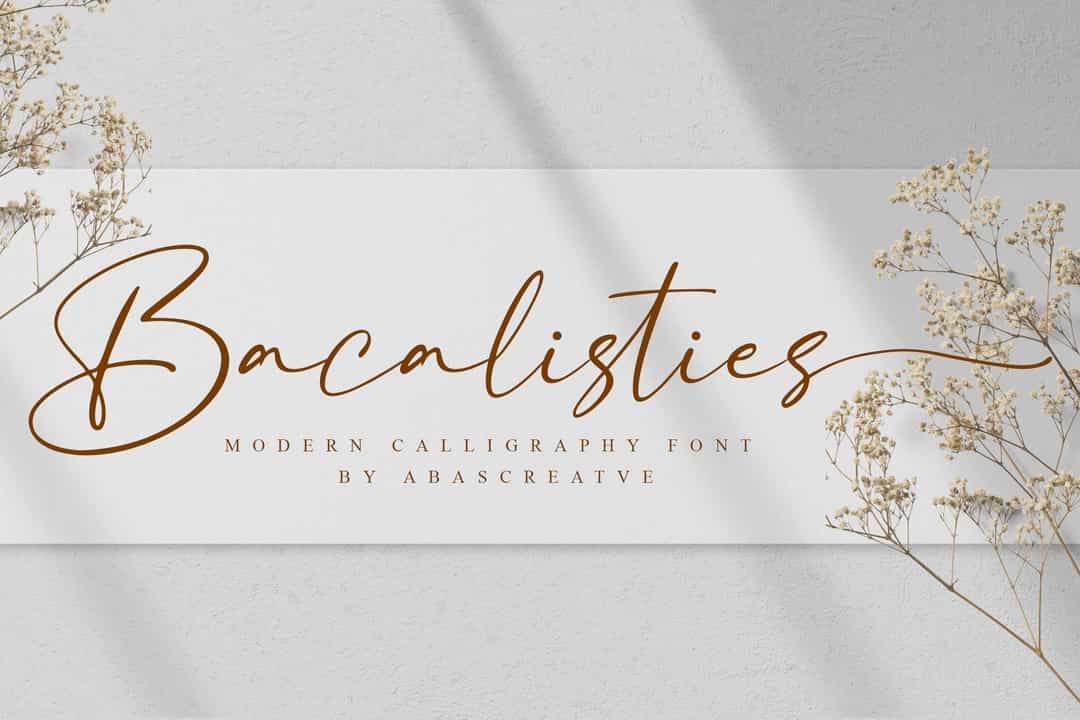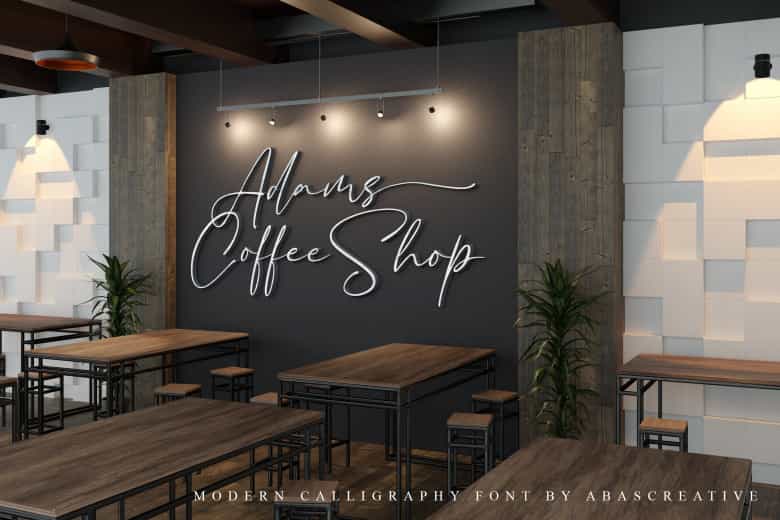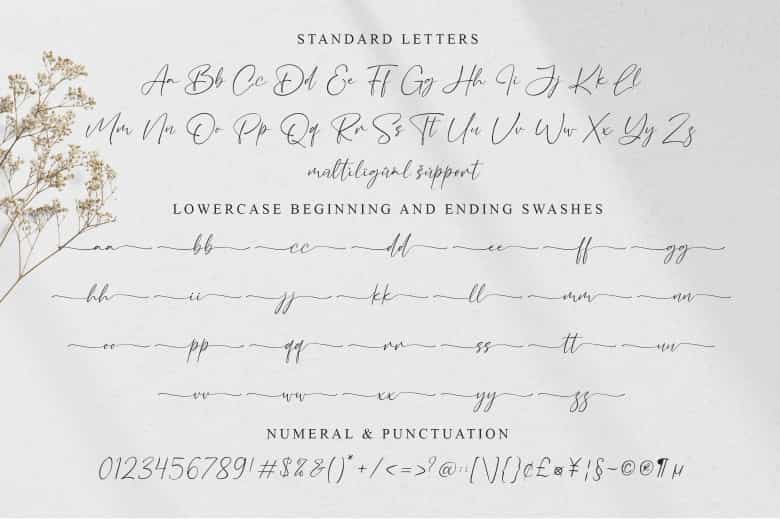
Bacalisties font is elegant and graceful and that is why it can adorn wedding invitations, thank you cards, greeting cards, quotes, logos, business cards, as well as any other design that needs elegance and individual approach. It is characterized by sleek design and elegant looks and it complements the aesthetically appealing glyphs to enhance its appeal.